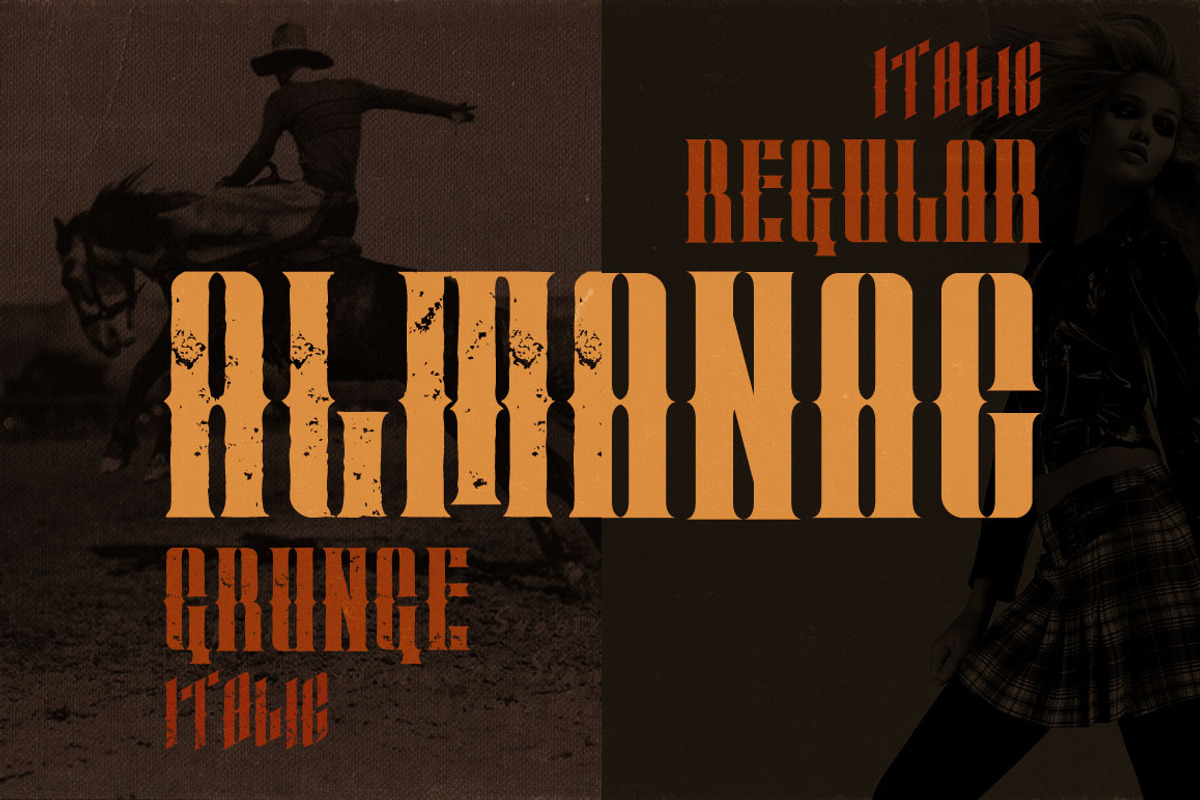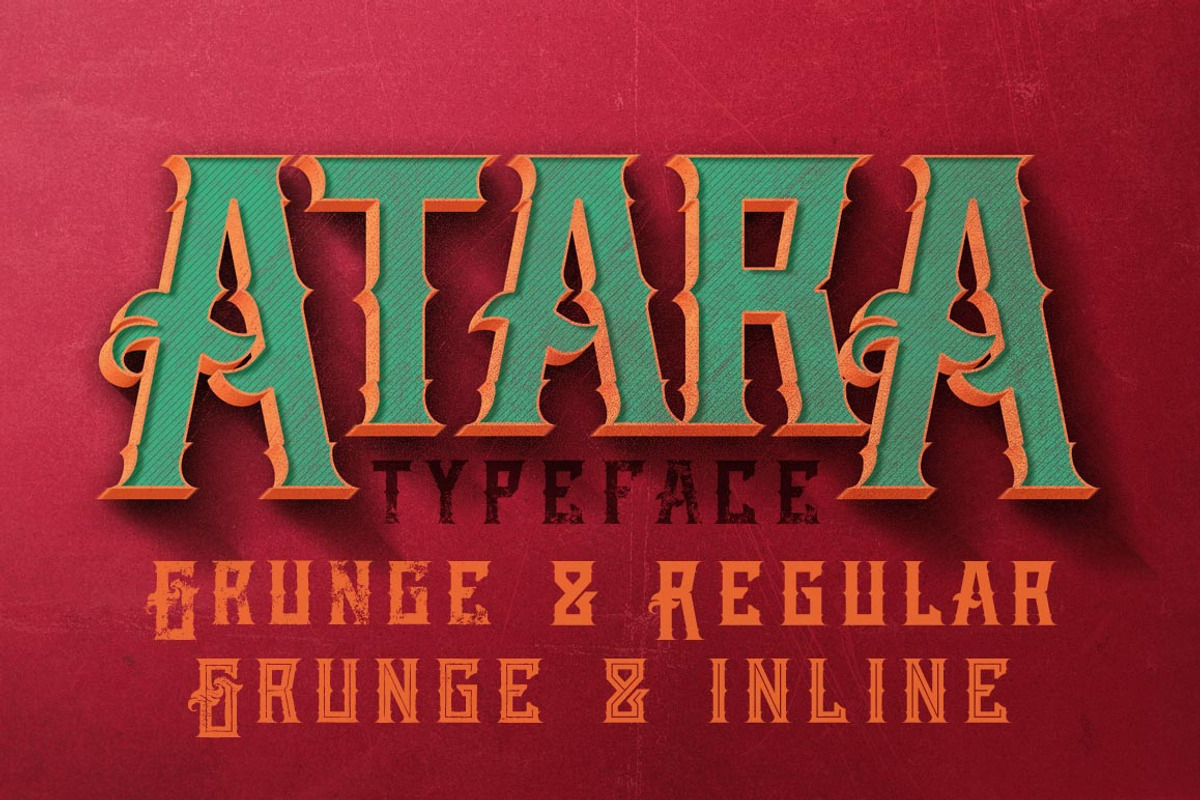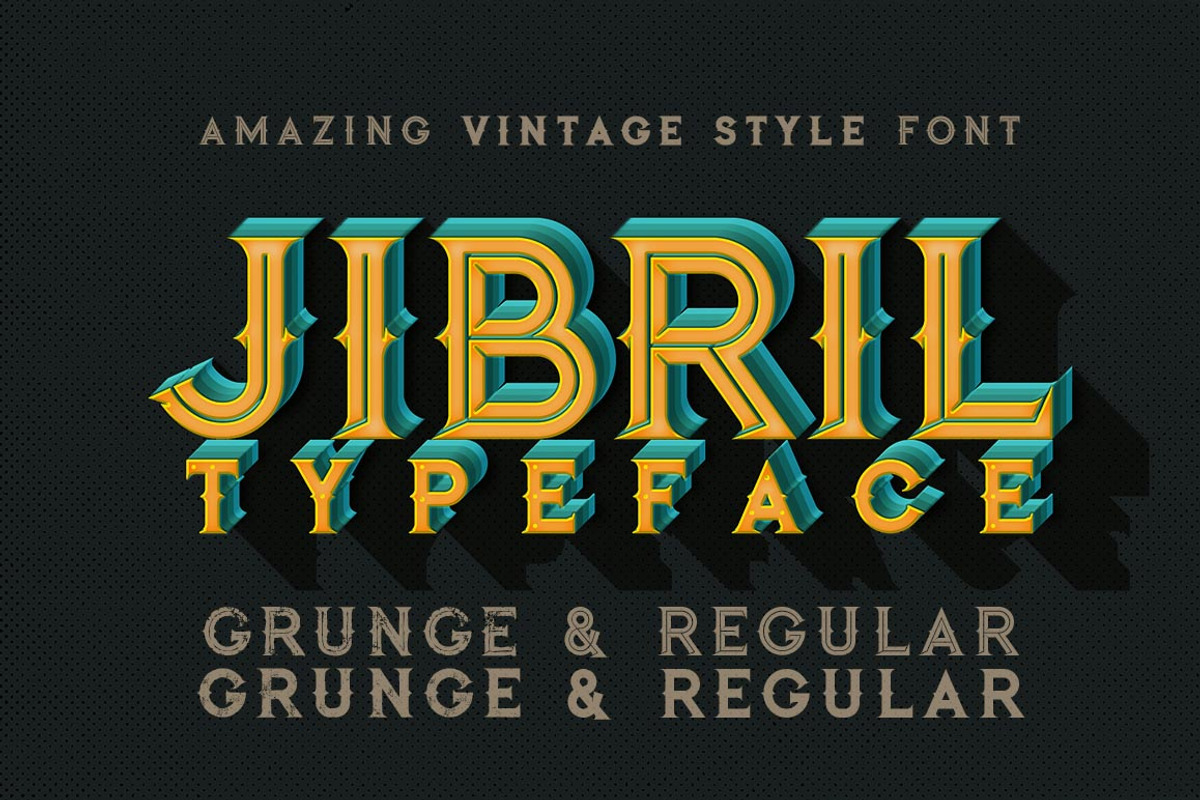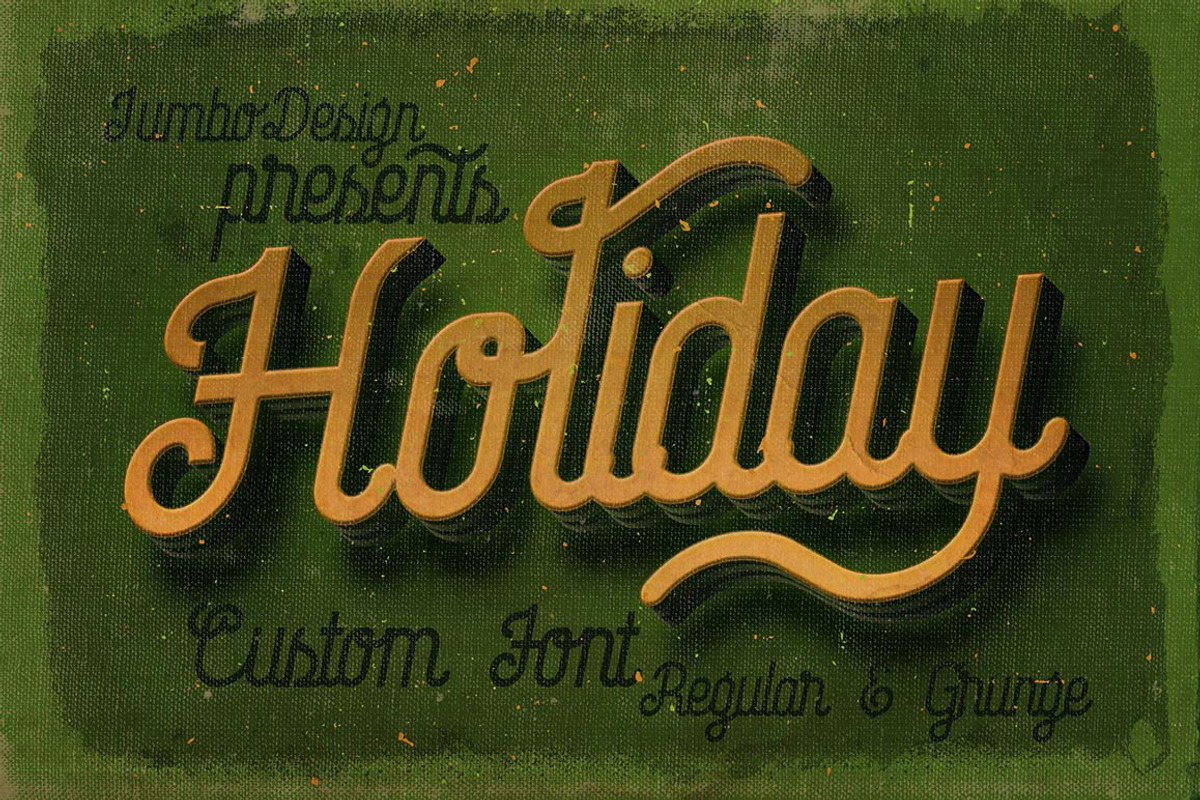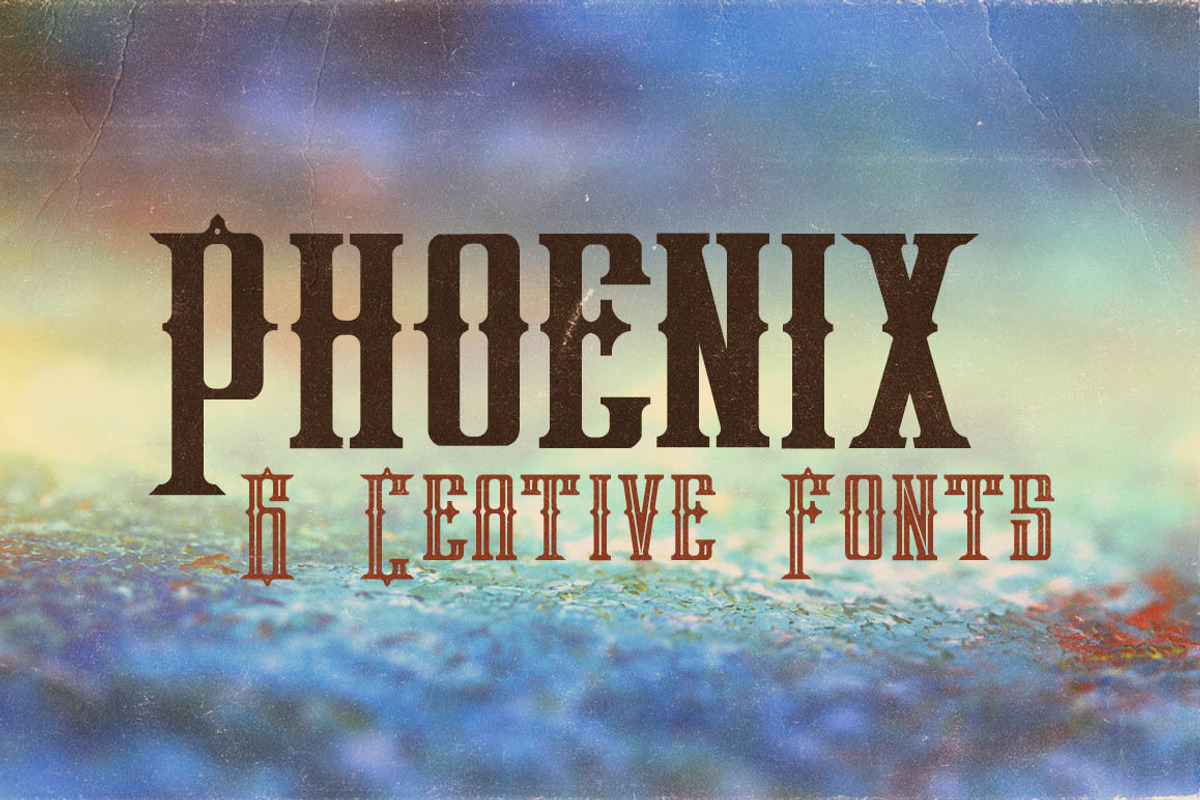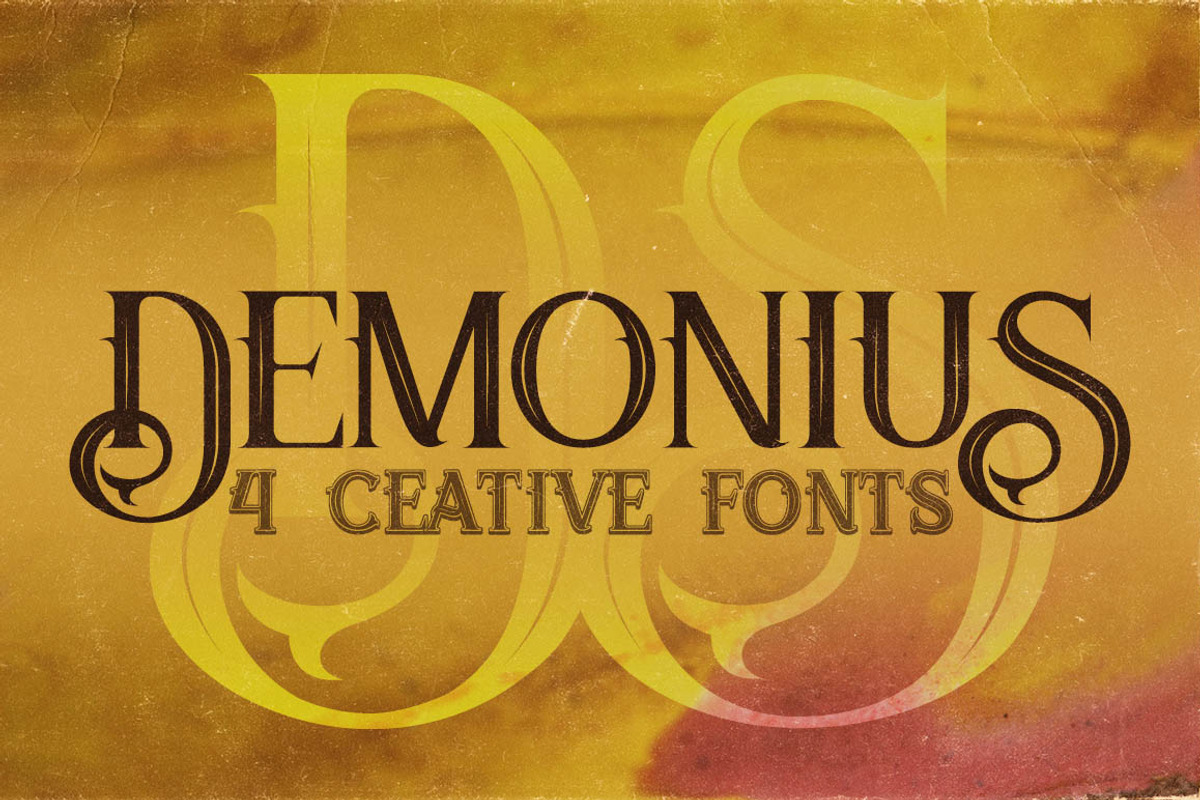
SALE Creative Fonts Mega Bundle
SALE Creative Fonts Mega Bundle by JumboDesign is a font selected for branding, posters, packaging, typography.
Why SALE Creative Fonts Mega Bundle is worth a look
SALE Creative Fonts Mega Bundle by JumboDesign fits naturally into Branding, posters, packaging, typography.